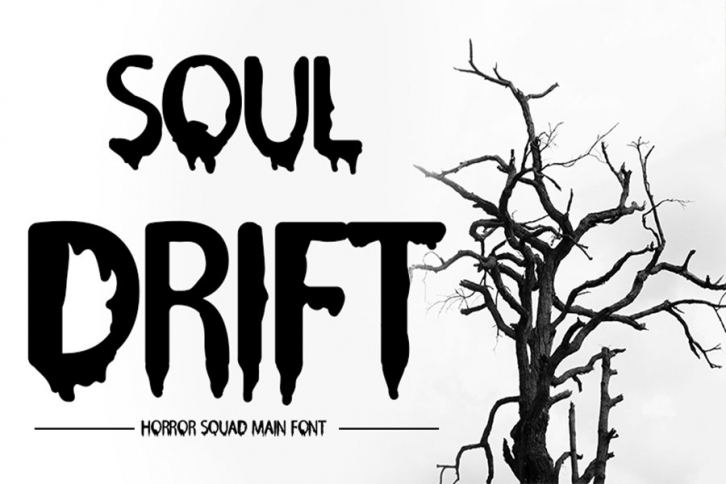
Soul Drift is a beautiful font that was designed by InermediaSTUDIO. It's a great choice for designers and creatives who need such a font. It was released on July 25, 2020 and the file size is 7.30 MB. Soul Drift may give a more youthful, expressive and casual look to your project. It is a very beautiful, refined, elegant, and high-quality font.